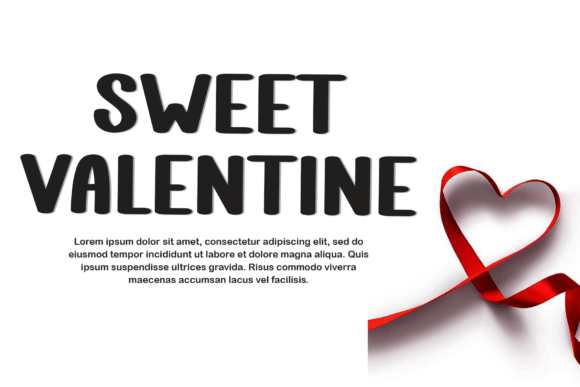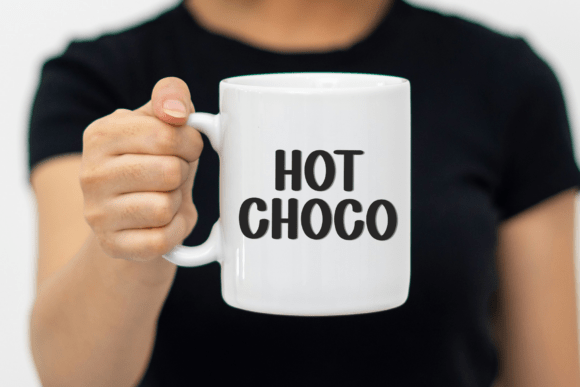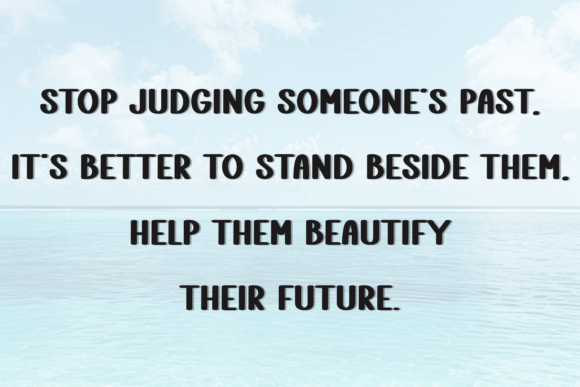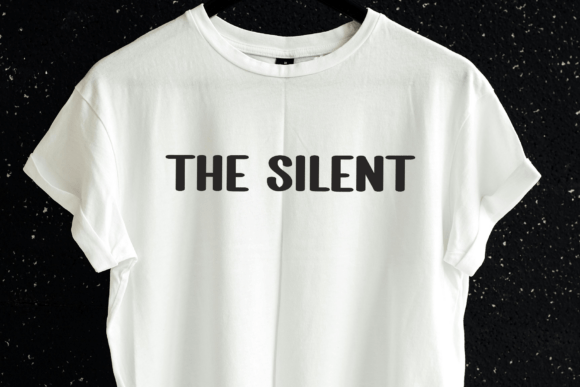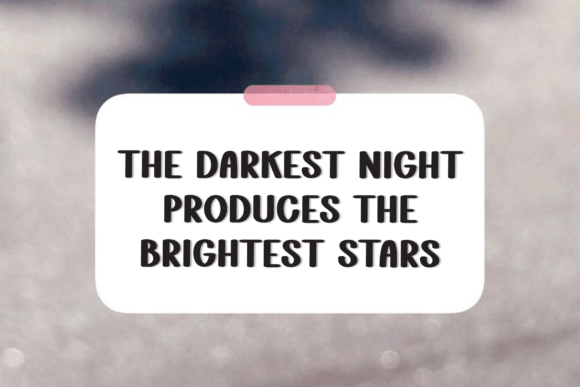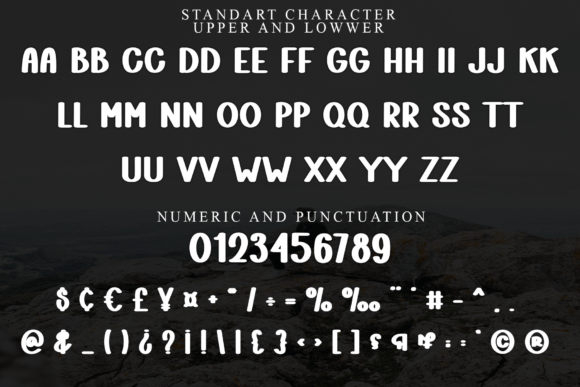
The Magic of Dusty Moon Font: A Festive Holiday Companion
It’s that time of the year again – the holiday season is just around the corner, and with it comes the pressure to create stunning designs that capture the spirit of the festivities. I still remember the year I was tasked with designing a Christmas card for a client’s family reunion. I spent hours scrolling through font libraries, searching for the perfect typeface that would convey the warmth and cheer of the season. That’s when I stumbled upon Dusty Moon Font, a beautiful and festive typeface that instantly transported me to a winter wonderland.
A Personal Review: What I Love About Dusty Moon Font
I’ve had the pleasure of working with Dusty Moon Font on several projects, and here’s what I love about it:
- ✨ Festive and merry vibe: Dusty Moon Font embodies the spirit of the holiday season with its decorative elements and whimsical flair.
- 🎉 Perfect for various projects: From greeting cards and gift tags to holiday-themed projects, Dusty Moon Font brings a cheerful and nostalgic ambiance to your designs.
While Dusty Moon Font is a stunning typeface, there are a few minor quirks to be aware of:
- ⚠️ Limited use outside of holidays: Due to its festive nature, Dusty Moon Font might not be the best choice for non-holiday projects.
- 🤔 Some glyphs may require manual adjustment: Depending on the design, you might need to tweak certain glyphs to achieve the perfect look.
Dusty Moon Font was inspired by the magic of the holiday season. The designer, a lover of all things festive and fun, aimed to create a typeface that would capture the essence of Christmas and other winter celebrations. With its decorative elements and whimsical flair, Dusty Moon Font is the perfect companion for any holiday design project.
Q: Is Dusty Moon Font suitable for non-holiday projects?
A: While Dusty Moon Font is primarily designed for holiday-themed projects, it can be used for other designs. However, its festive nature might not be the best fit for all types of projects.